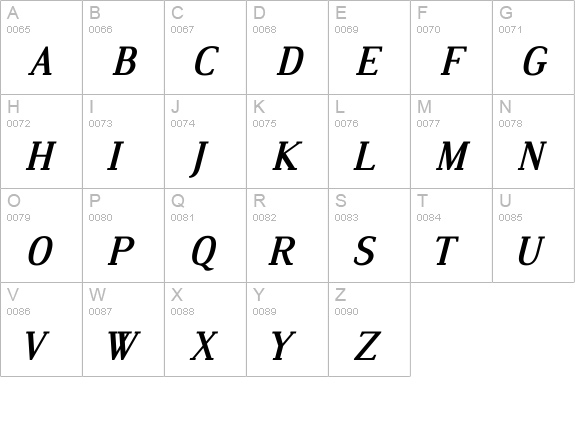
Dustismo Roman is a classic serif font that exudes elegance and sophistication. With its timeless appeal and refined design, this font is perfect for adding a touch of sophistication to any project. The graceful serifs and clean lines of Dustismo Roman make it a versatile choice for both print and digital designs. One of the best things about Dustismo Roman is that it is available for free download at FontsMarket.com. This means that you can enjoy the beauty and versatility of this font without having to spend a dime. Whether you are working on a professional design project or just looking to add a touch of style to your personal creations, Dustismo Roman is a fantastic choice. Download it today and elevate your designs with this stunning and effortlessly chic font.